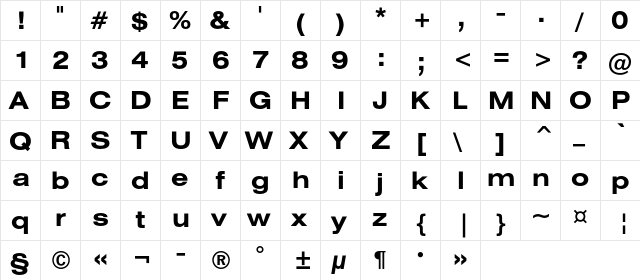
HeliosExt Bold
Design Context for HeliosExt Typeface
HeliosExt takes a measured approach to typography — its balanced proportions and neutral character make it a reliable workhorse for both digital and print work. Its bold stroke weight gives it real presence on the page.